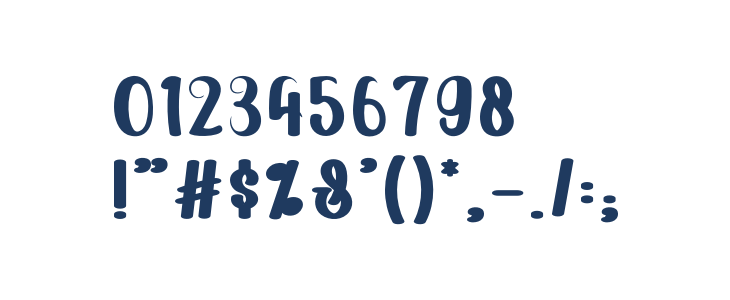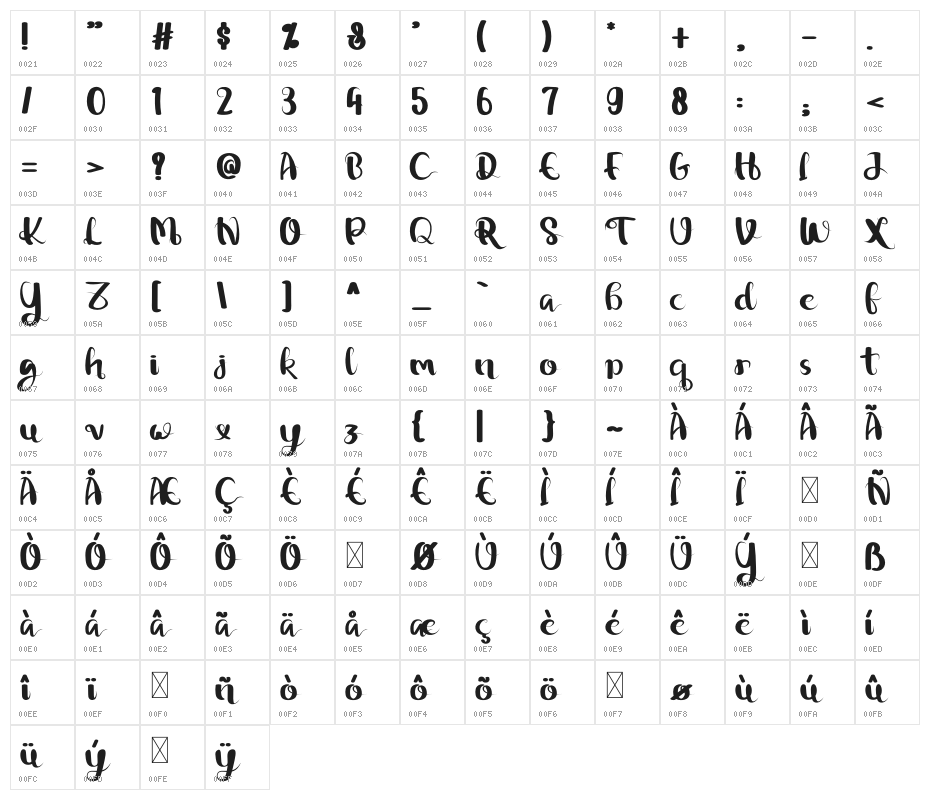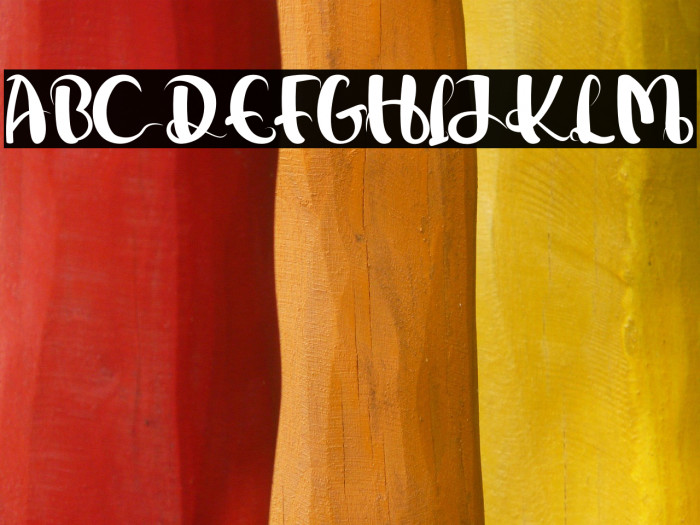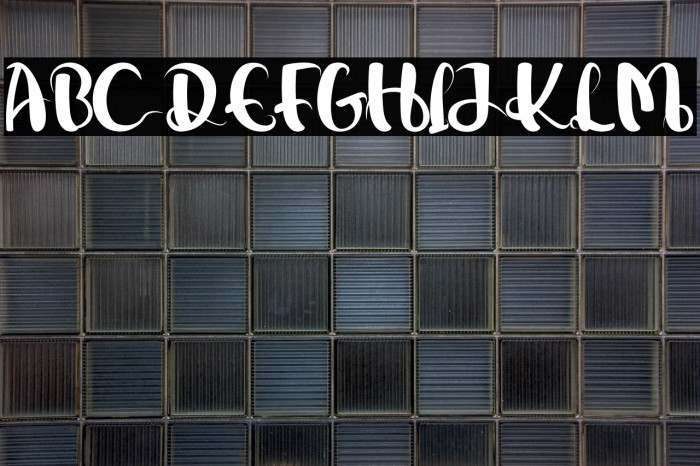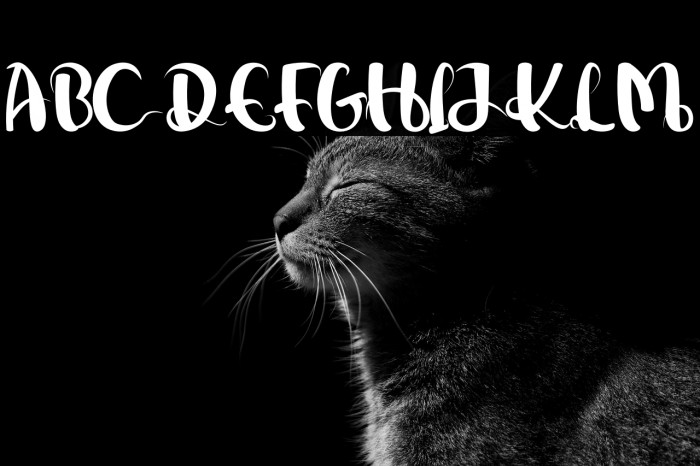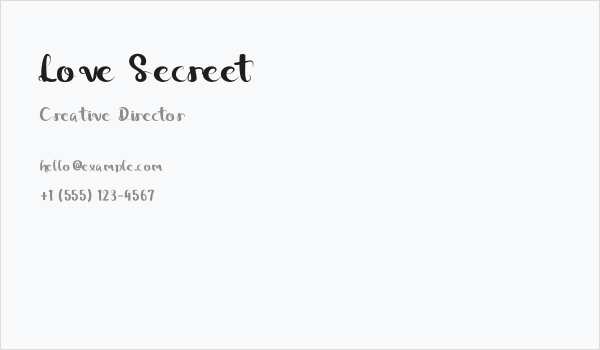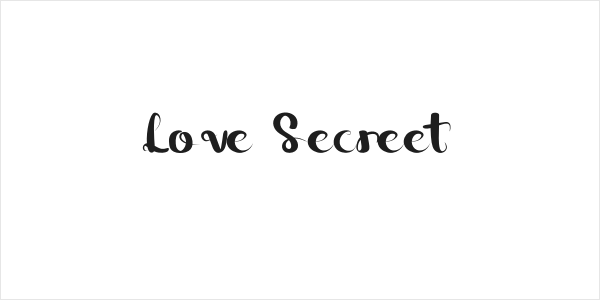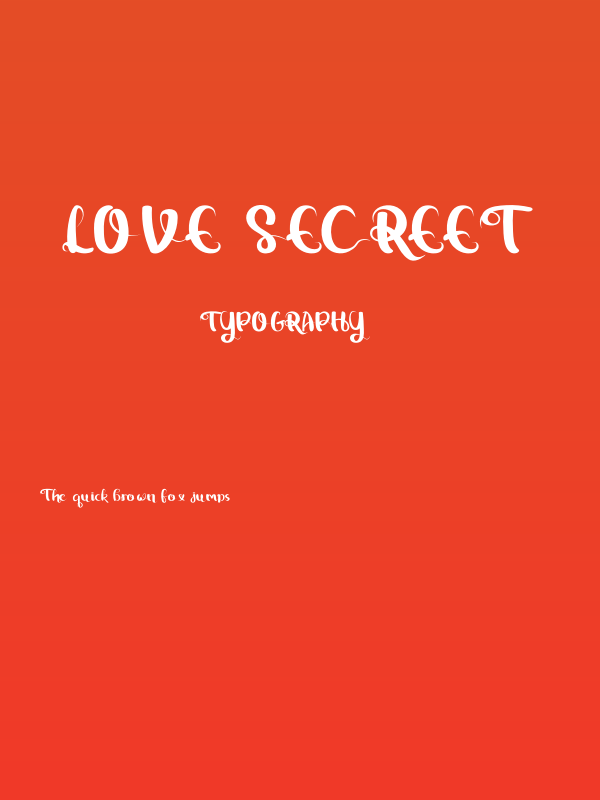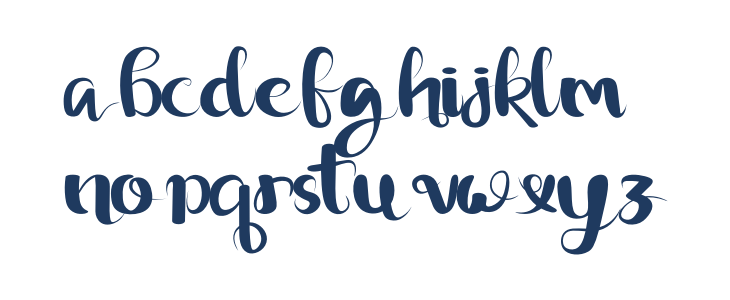
Love Secreet Font
Love Secreet Description
This font features a playful and whimsical script style with a bold presence. The characters are interconnected with elegant swashes and loops, giving it a fluid and dynamic appearance. The uppercase letters are particularly ornate, with flourishes that extend beyond the baseline and cap height, adding a touch of sophistication. The lowercase letters maintain a consistent flow, enhancing readability while retaining the decorative essence. Numerals are bold and rounded, complementing the overall style. Special characters are creatively designed, maintaining the font's unique flair.
| Use Case | Logos, Headlines, Invitations |
| Proposed Projects | Ideal for wedding invitations, greeting cards, branding projects, and social media graphics. |